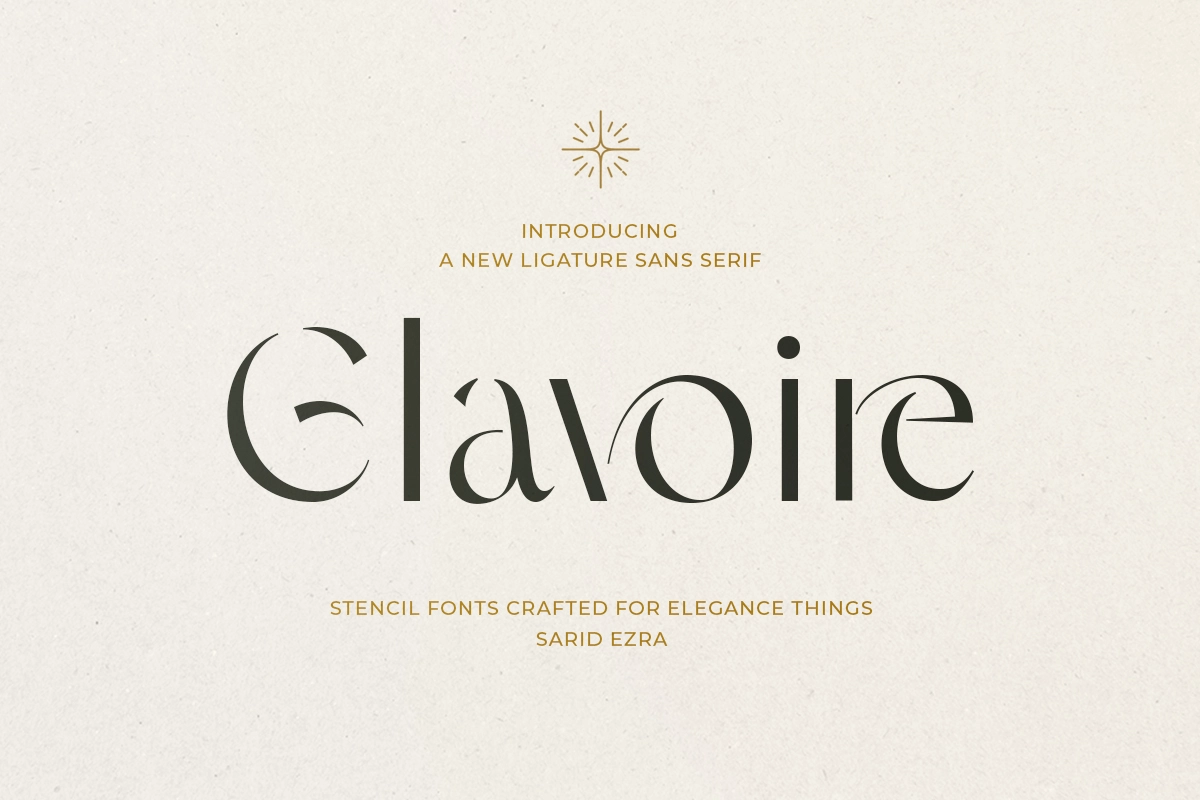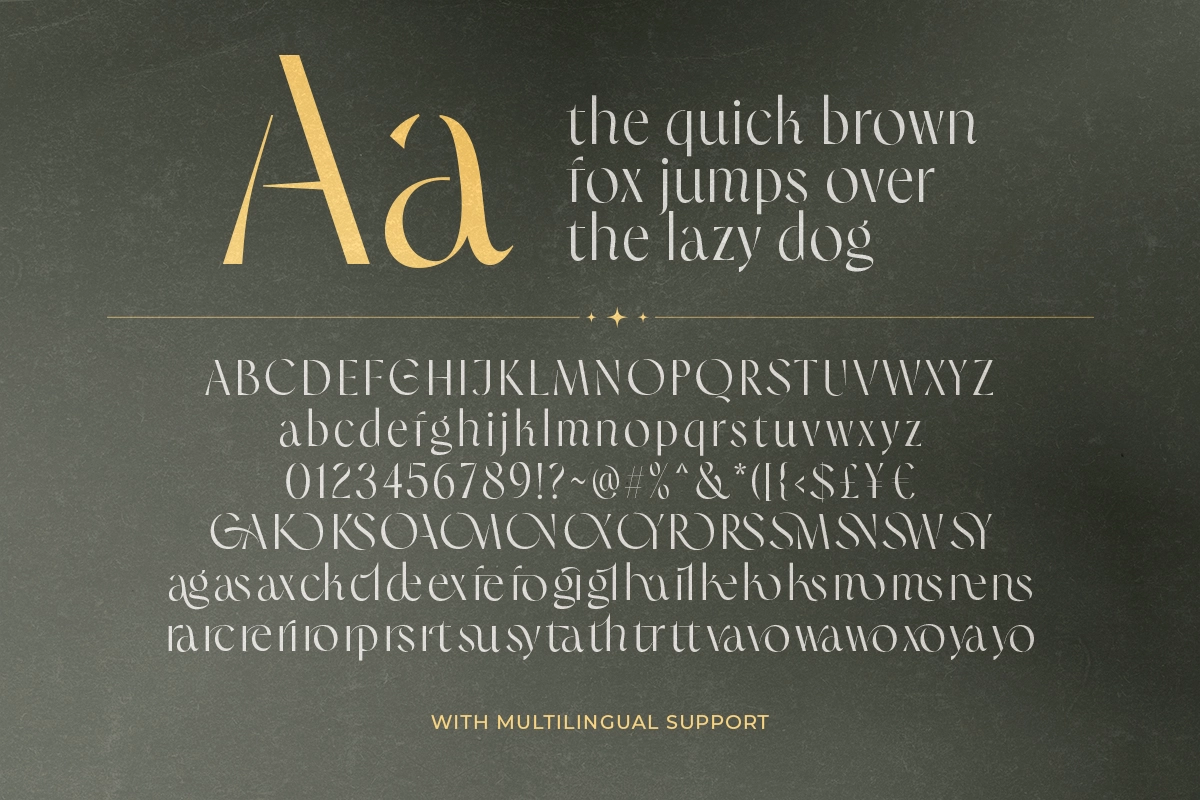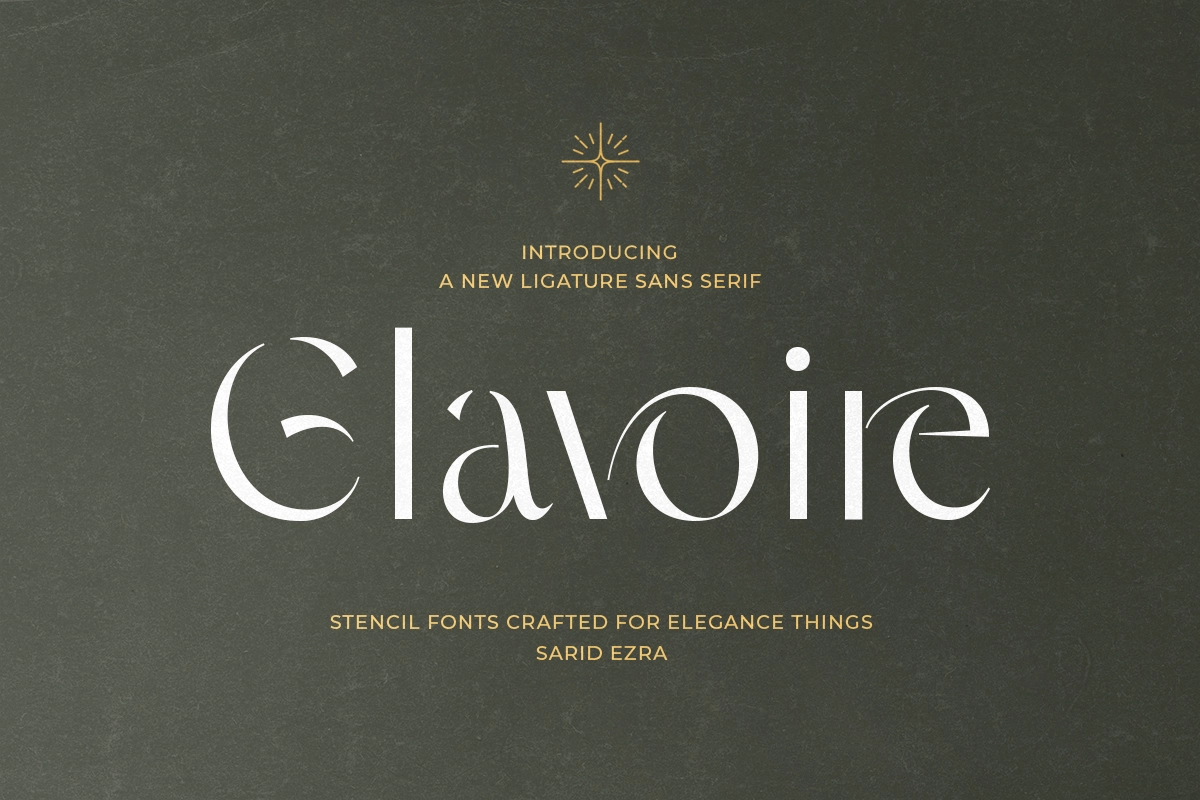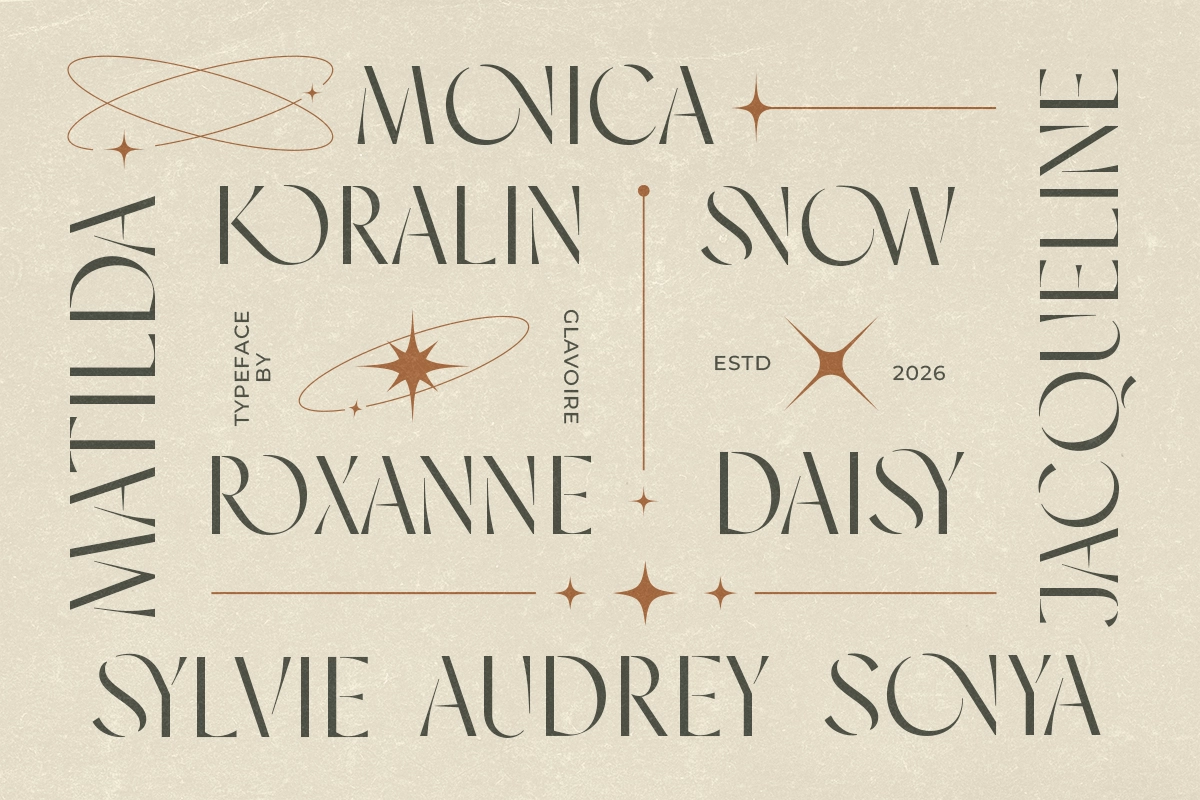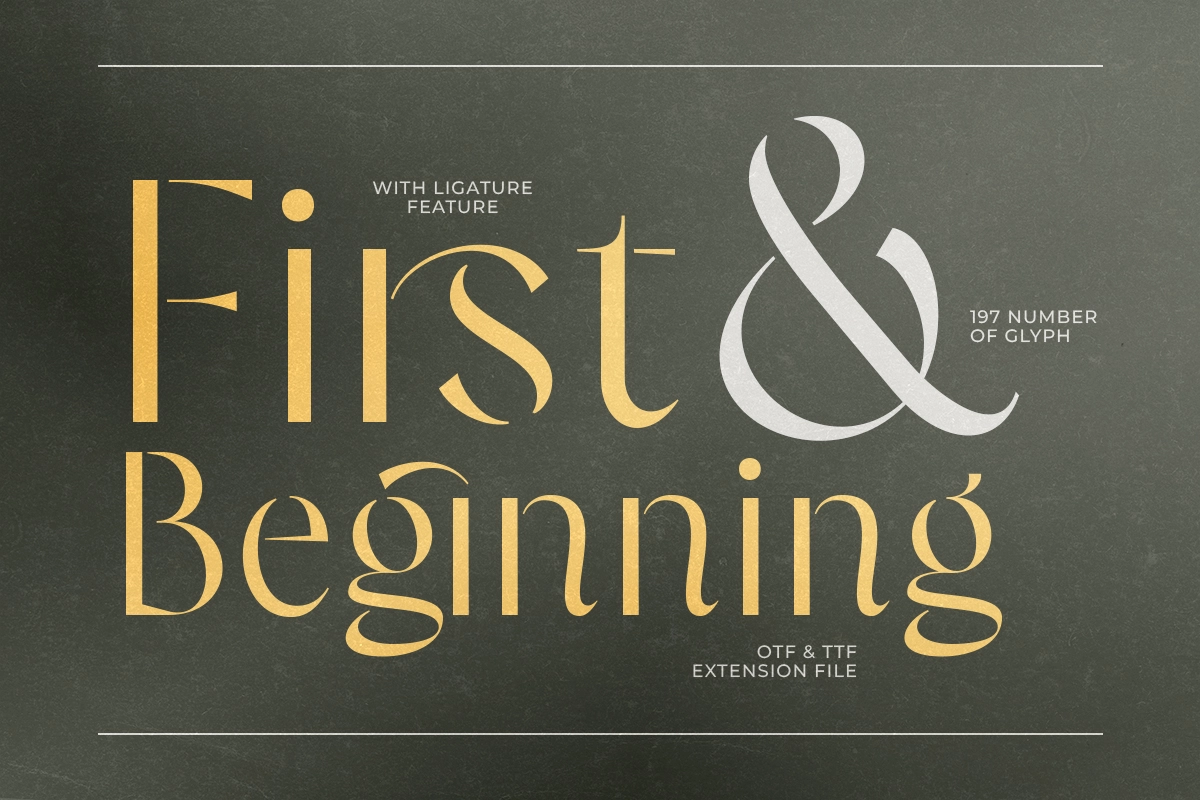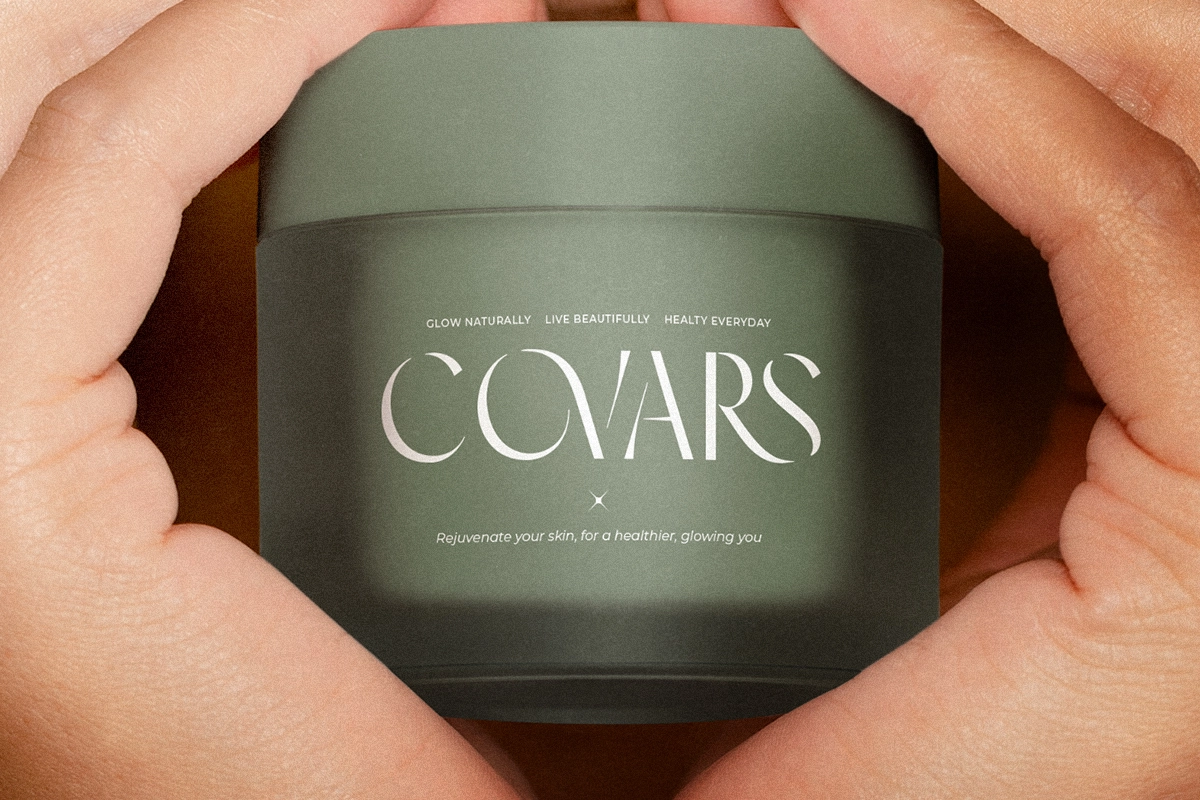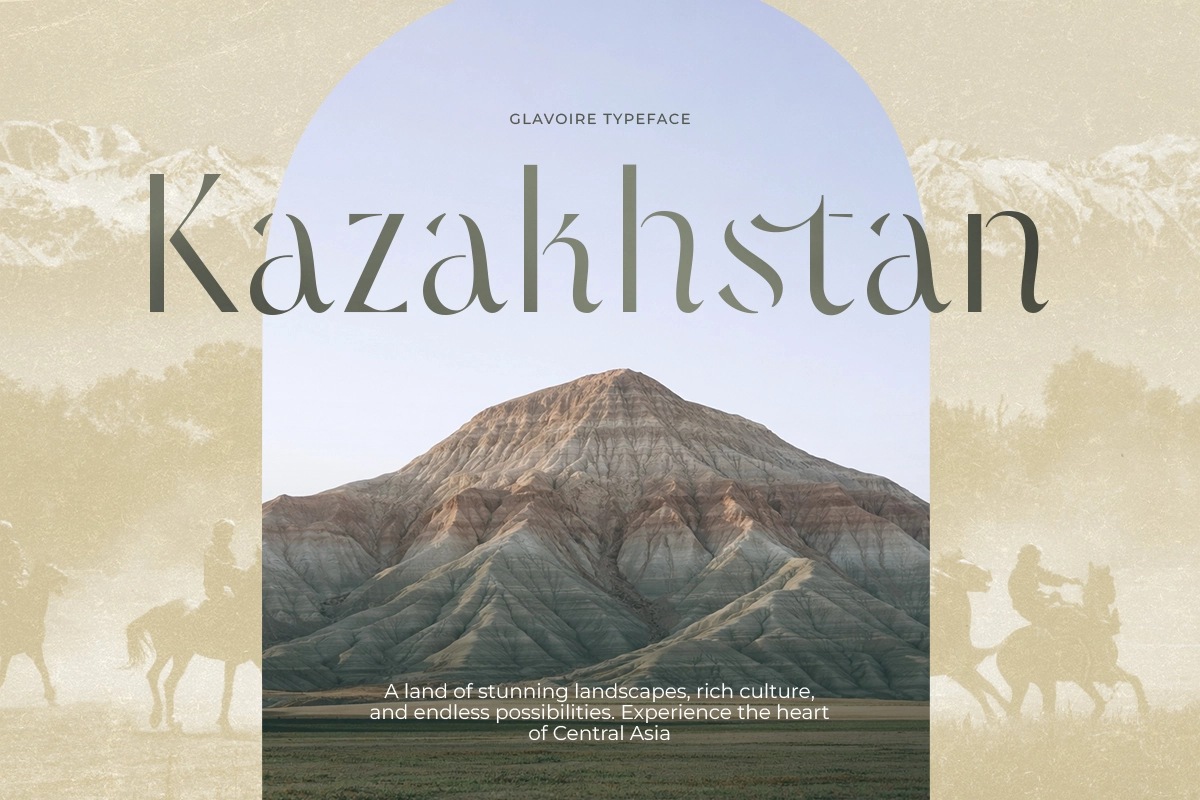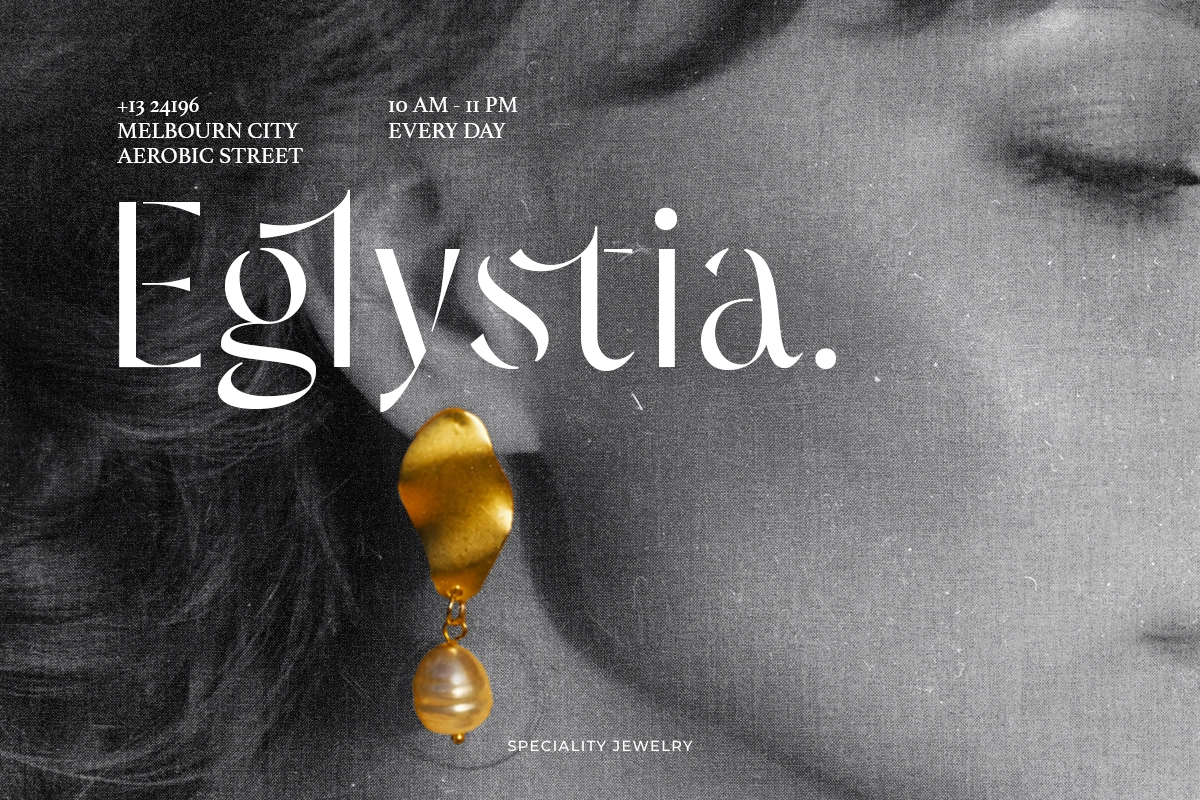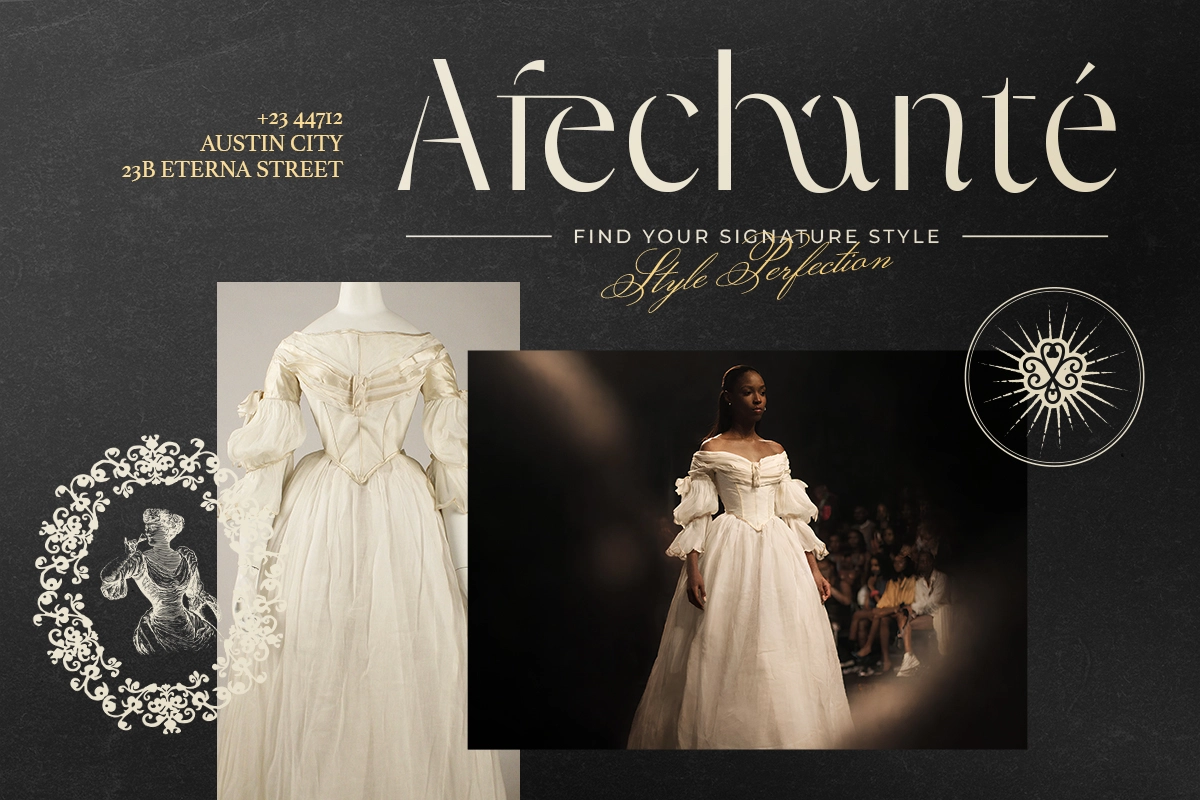
Glavoire - Elegant Stencil Sans Font
Glavoire, Elegant Stencil Sans Font presents a refined stencil sans with sculpted breaks and flowing ligatures, echoing Art Deco lettering and the polished restraint of mid-century luxury branding. It suits logotypes, fashion editorials, jewelry campaigns, wedding invitations, packaging design, and boutique identities where elegance and graphic clarity shape the visual tone.
• Stylish ligatures